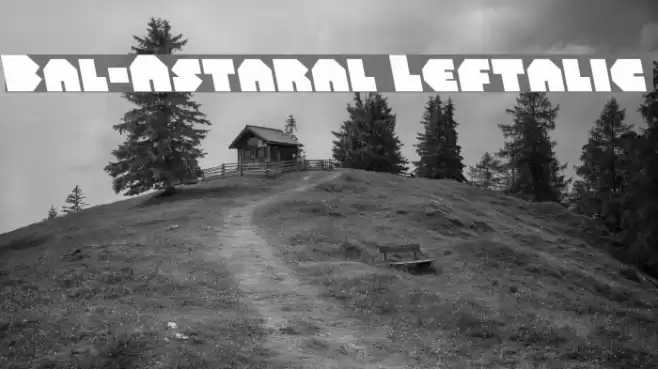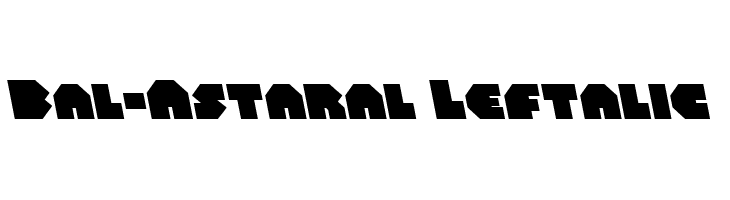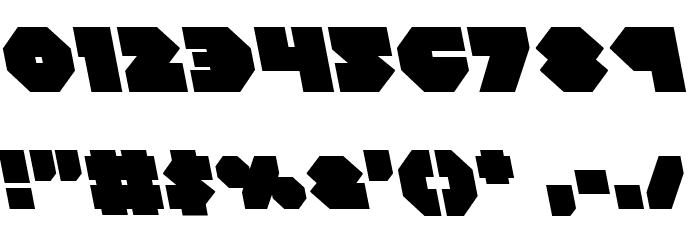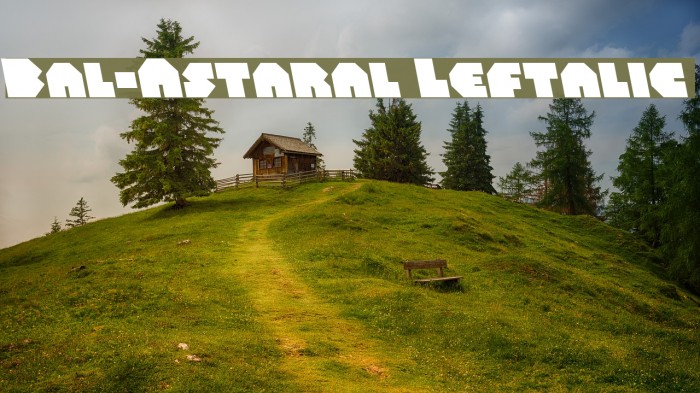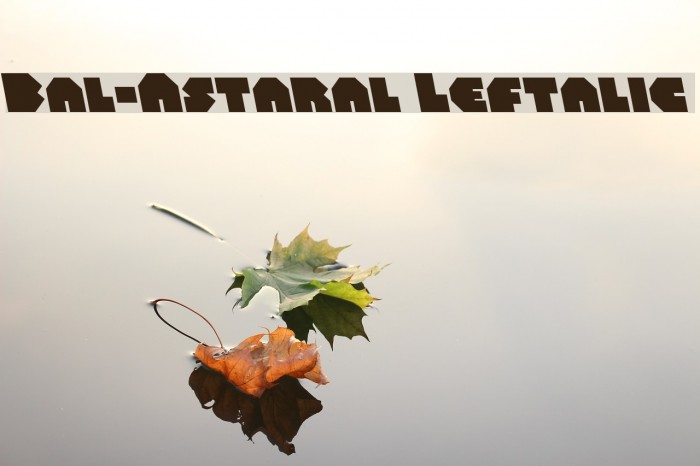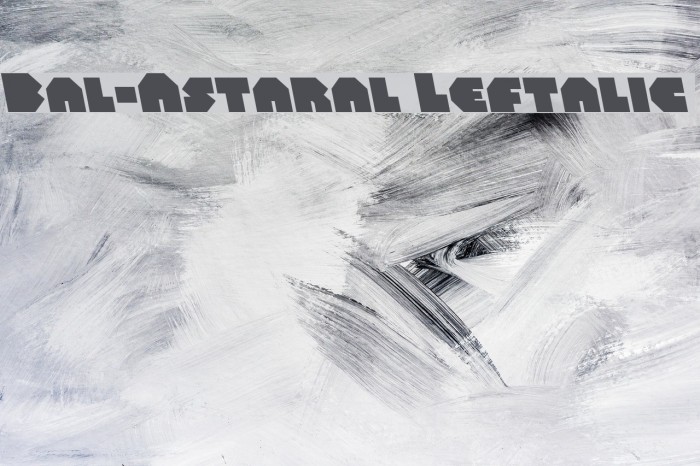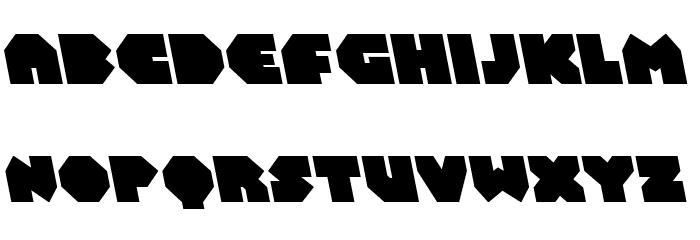
Bal-Astaral Leftalic Font
Bal-Astaral Leftalic Description
This bold and striking font features a geometric and angular design, characterized by its sharp edges and block-like structure. The letters are uniformly bold, creating a strong visual impact. The font's unique style is reminiscent of futuristic or sci-fi themes, making it ideal for projects that require a modern and edgy look. The characters are tightly spaced, enhancing the compact and solid appearance. The numbers and special characters maintain the same bold and angular style, ensuring consistency across all text elements.
A bold, geometric font with a futuristic and angular design from Futuristic fonts.
- Font: Bal-Astaral Leftalic
- Proposed Projects: Ideal for sci-fi themed posters, video game titles, and modern branding projects.
- Character Spacing: Tight
- Overall Style: Futuristic